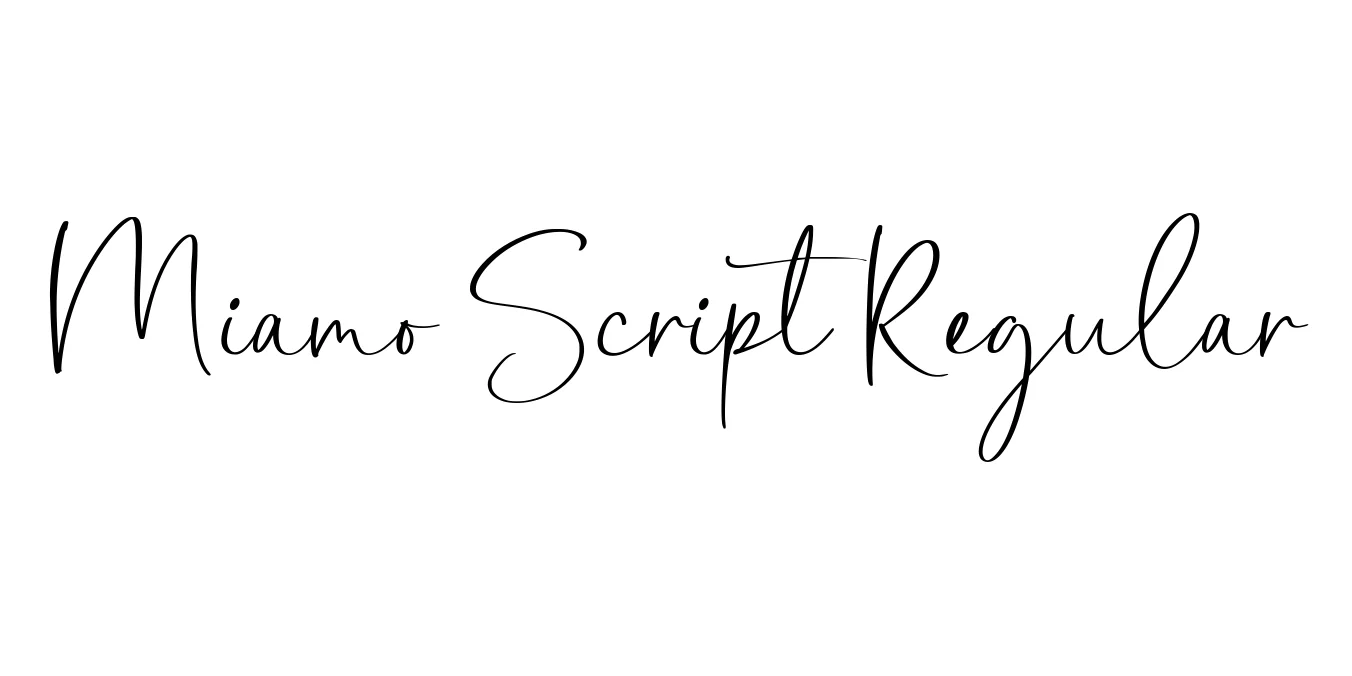
Miamo Script Regular
Designed by Vunira Design
Miamo Script Regular is a contemporary calligraphy typeface that embodies elegance and fluid motion. Created to bridge the gap between traditional handwriting and modern digital typography, it features a balanced weight and graceful ligatures that create a seamless flow between characters. Its aesthetic is deeply rooted in formal scripts, yet it maintains a friendly and approachable feel that works across various media.
This typeface is particularly noted for its versatile swashes and stylistic alternates, making it a favorite for designers working on high-end retail packaging and bespoke identity projects. Since its release, it has become a staple in the design world for projects requiring a touch of personal flair without sacrificing legibility or professional polish.
Miamo Script Regular Best Uses
Exquisite for invitations, save-the-date cards, and seating charts.
Lends a sophisticated, artisanal feel to logos and boutique packaging.
Enhances aesthetic visuals for lifestyle and fashion-related content.
Adds a heartfelt, personal touch to digital and printed cards.